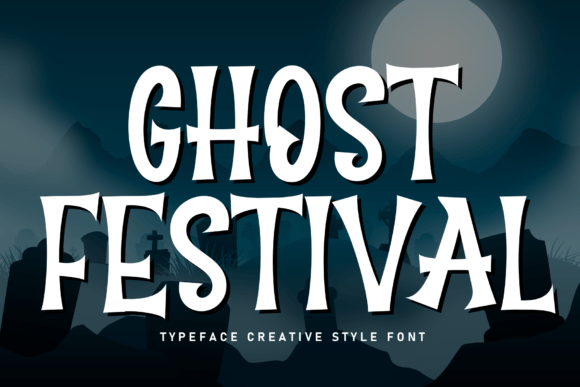
Introducing Ghost Festival Font, the ultimate game-changer in the world of typography. Crafted with utmost precision and unparalleled creativity, this display font is here to revolutionize your designs. Whether you're working on a captivating CV or an attention-grabbing project, Ghost Festival Font is your secret weapon to stand out from the crowd.
Unleash your inner artist with this incredibly unique font that effortlessly blends elegance and style. Its mesmerizing curves and intricate details will mesmerize your audience, leaving a lasting impression on anyone who lays eyes on your creations. Let your creativity soar as Ghost Festival Font takes your design ideas to new heights!
Designed by the brilliant minds at andikastudio, Ghost Festival Font is more than just a font; it's a masterpiece in itself. Each letter is meticulously crafted to perfection, ensuring a flawless and seamless flow that adds a touch of sophistication to your work. With this font in your arsenal, you'll effortlessly captivate your audience and leave them in awe of your design prowess.
Searching for the best fonts for CV design? Look no further. Ghost Festival Font is the epitome of elegance, making it the perfect choice for creating a visually stunning resume that will leave potential employers impressed. Stand out from the competition and let your CV speak volumes about your professionalism and attention to detail.
With Ghost Festival Font, your imagination knows no bounds. It's time to make a statement, leave your mark, and set yourself apart from the ordinary. Get ready to embark on an extraordinary design adventure that will leave everyone in awe. Download Ghost Festival Font now and let your creativity shine!